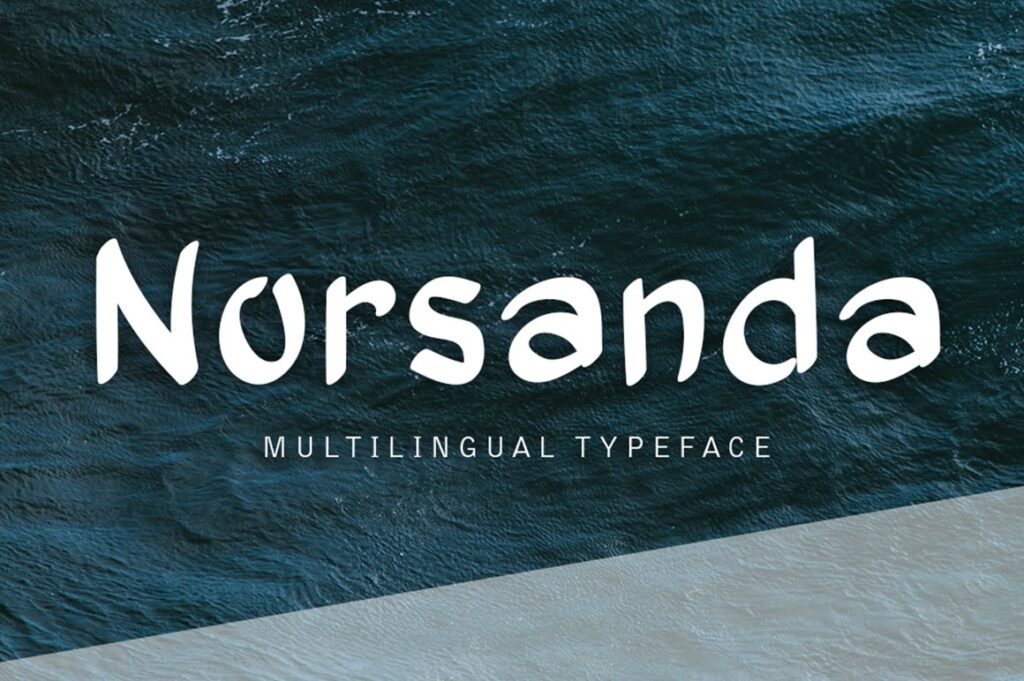
Norsanda, a hand-drawn multilingual typeface. This handmade typeface includes all Latin and Greek uppercase and lowercase letters, numerals, punctuation, symbols and multilingual characters.